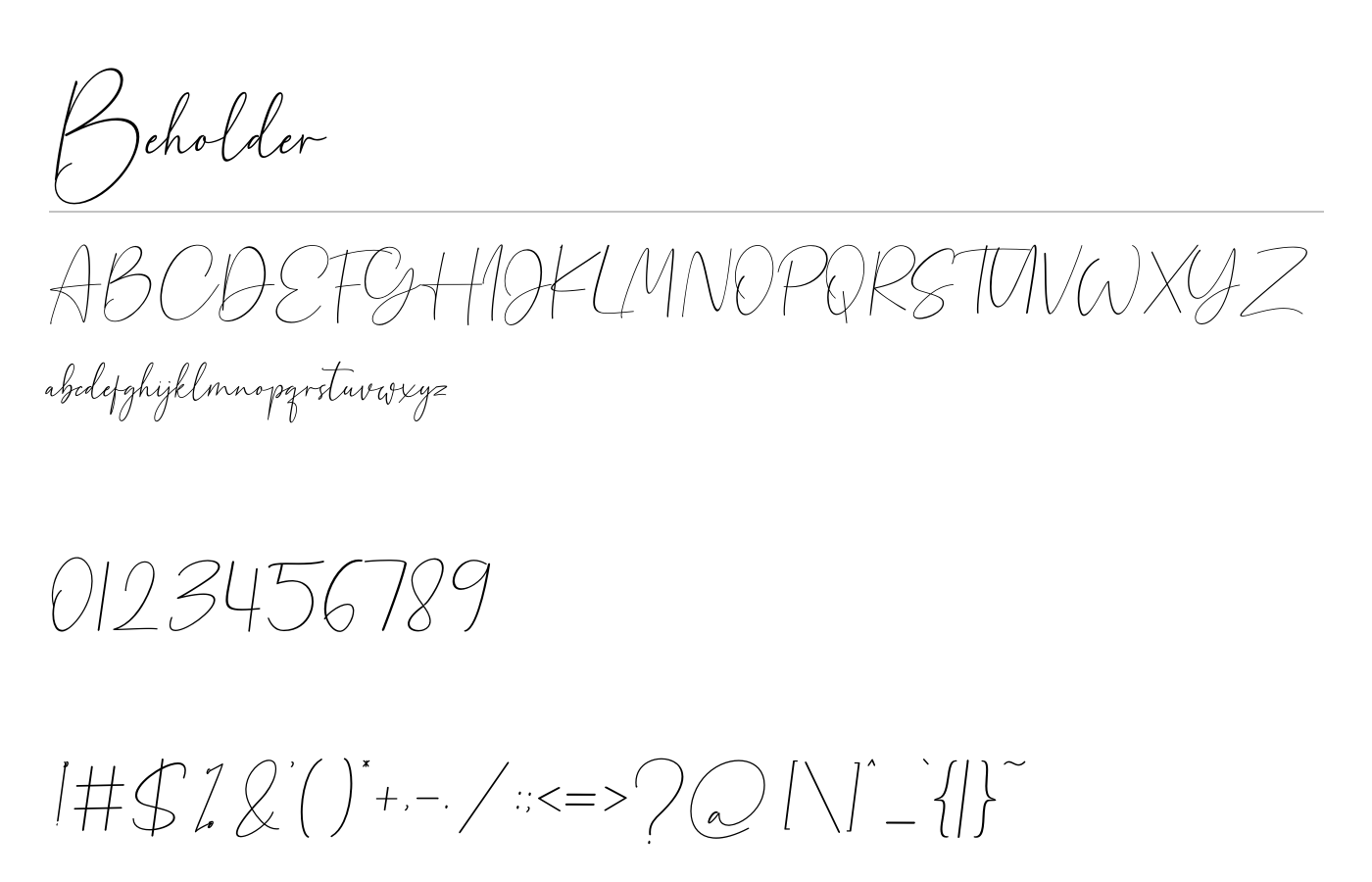
Beholder is a delicate, handwritten script font with thin, elegant lines and a natural, flowing style that combines both uppercase and lowercase letters in a graceful manner. Its slender, airy letterforms and subtle variations give it a refined and personal feel, making it perfect for invitations, branding, or any design seeking a touch of sophistication and warmth. This font works especially well in creative projects where a light, artistic, and approachable look is desired.
Beholder Font
About Beholder Font